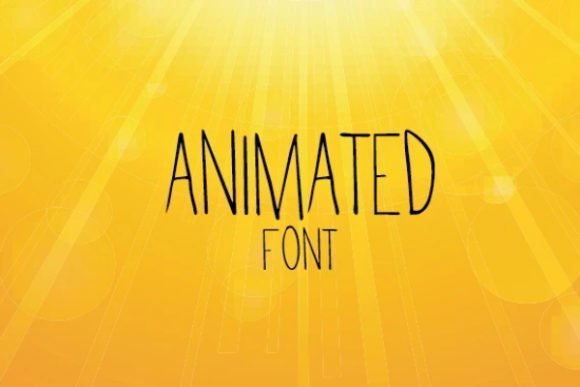
Where Creativity Meets Simplicity
Have you ever stared at a blank canvas, feeling the weight of an idea that refuses to take shape? For designers, those moments can be the most frustrating – and yet, the most exciting. It’s in those moments of creative limbo that we discover the perfect font can be the spark that sets our imagination ablaze.
Enter the Animated Font, a simple and casual sans serif font that exudes a clean, effortless feel. With its neatly arranged letters, this typeface is poised to elevate both formal and non-formal designs. Whether you’re crafting a brand identity or a personal project, the Animated Font is an invaluable asset in your creative toolkit.
So why is the Animated Font so valuable for designers? Its understated elegance and versatility make it the perfect choice for a wide range of projects, from blog posts to brochures and beyond. With the Animated Font, you can trust that your message will shine through with clarity and sophistication.
Animated Font Key Features
- Resolution Independent: As an SVG file, Animated Font is resolution independent, ensuring that it maintains its quality and appearance regardless of the screen resolution or device.
- Size and Color Customization: Users can easily customize the size and color of the animated font to match their specific design requirements and branding.
- Unique Animation Effects: Animated Font offers a range of unique animation effects, including bouncing, fading, and rotating, which can be used to add visual interest and engagement to text-based content.
- Easy Integration: Animated Font can be easily integrated into websites, applications, and social media platforms using HTML, CSS, and JavaScript, making it a convenient solution for designers and developers.
Animated Font Review
Overall, I’m a bit torn about the Animated Font. It’s got some great qualities, but also some limitations that make it tricky to use.
- The font’s animations are smooth and visually appealing, making it perfect for adding a touch of personality to your designs.
- It’s super versatile and can be used for a wide range of projects, from social media graphics to presentations.
- The font is easy to customize, with a variety of options for colors, sizes, and animation styles.
- The font can be quite distracting if overused, so be careful not to overdo it.
- It’s not ideal for small text or headings, as the animations can get lost in the details.
- Some users may experience compatibility issues with older browsers or devices.
Overall, I’d say the Animated Font is a great addition to any designer’s toolkit, but it’s not a one-size-fits-all solution. Use it sparingly and with care, and you’ll be able to create some truly eye-catching designs.
Animated fonts are commonly used in:
- Presentations to grab the audience’s attention.
- Marketing materials to create a visually appealing effect.
- Social media posts to add a touch of creativity.
Tips for Getting the Most Out of Animated Font
Here are some tips to help you get the most out of animated font:
- Experiment with different font styles and animation effects.
- Use animated font in combination with other visual elements to create a cohesive look.
- Keep the animation subtle and not overwhelming.
Yes, you can customize the animation rules and create your own Animated Font effects by editing the CSS file that defines the animation rules. You can add or modify animation classes, change the timing and duration of the animations, and even create new animation effects from scratch.
To do this, you’ll need to have a basic understanding of CSS and animation principles. You can also use online tools and software to help you design and create custom animation effects.
Are Animated Font effects compatible with all browsers and devices?